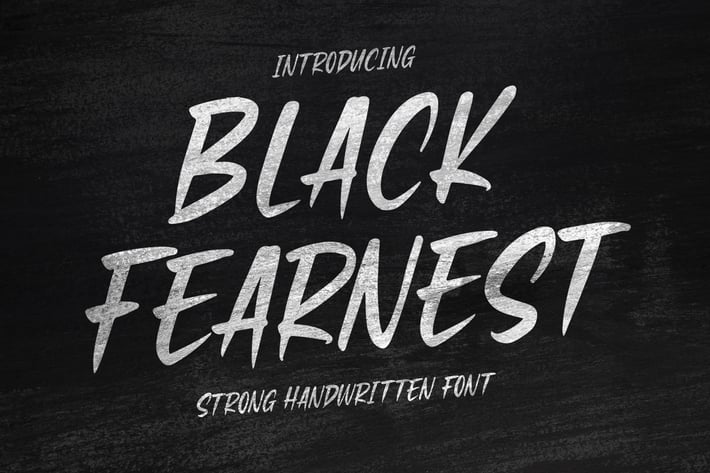
Black Fearnest - Strong Handwritten Font
Introducing of our new product the name is Black Fearnest Strong Handwritten Font. Black Fearnest good urban theme, logotype, label, badge, headline, signature, packaging and any more.